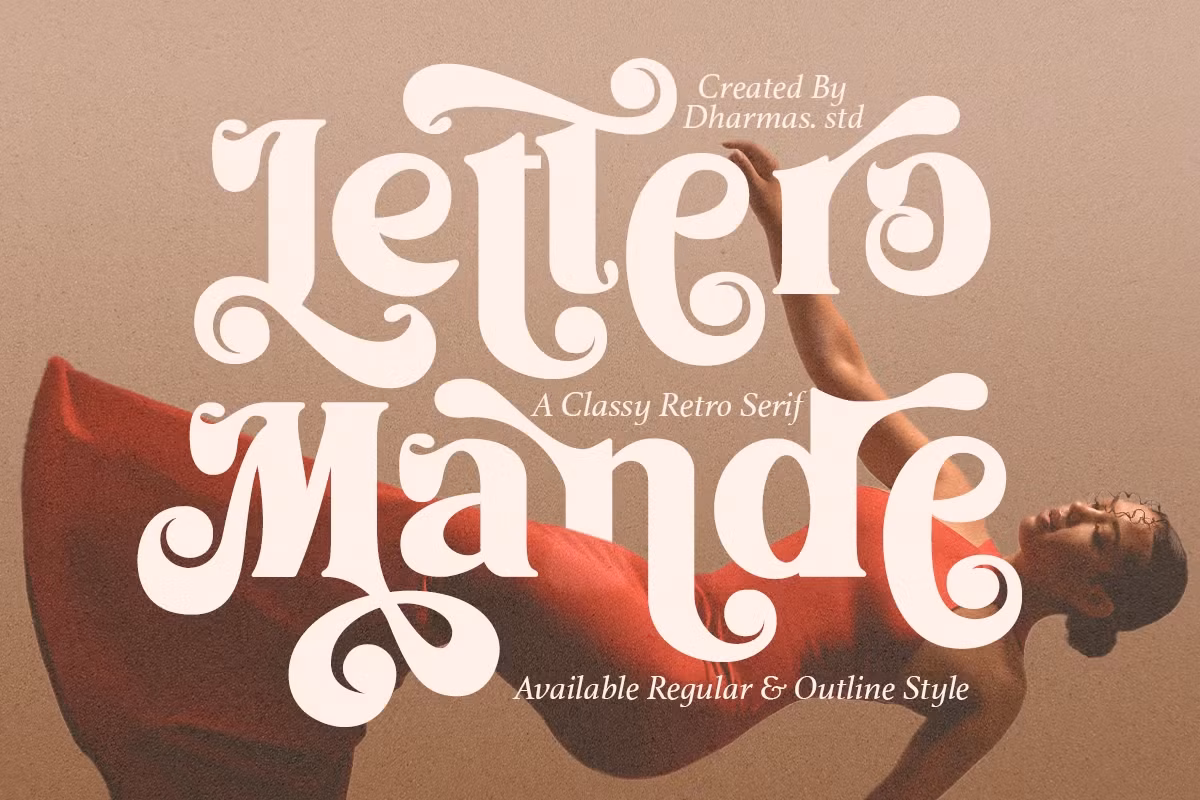
Lettero Mande – Playful Retro Font Free Download
Vibrant, groovy, and full of nostalgic flair, Lettero Mande – Playful Retro Font Free Download is a cheerful typeface that brings the spirit of the ‘70s and ‘80s into modern design. Perfect for posters, logos, t-shirt designs, packaging, and social media graphics, this font adds a fun, retro-cool vibe that instantly grabs attention.
With chunky curves, quirky letterforms, and bold personality, Lettero Mande is great for any project that calls for a bit of funk and flair. Its playful rhythm and vintage style make it a standout choice for designers who want to make their typography pop with positivity.